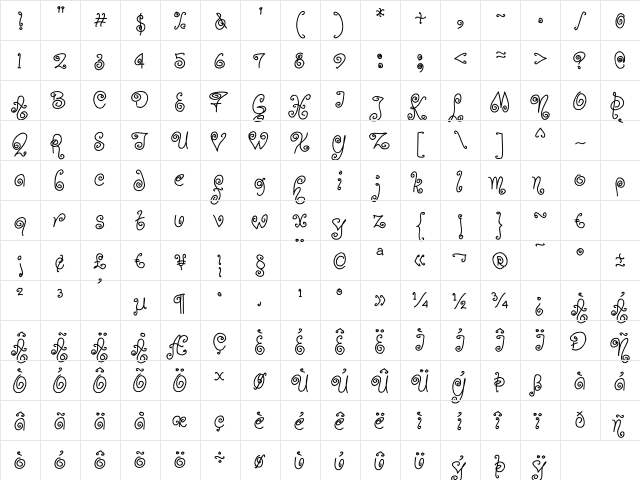
PinWheel Regular
| Foundry | HT |
| Designer | HT |
Design Context for PinWheel Typeface
PinWheel is a composed and adaptable typeface that performs quietly and consistently across a wide range of design contexts.